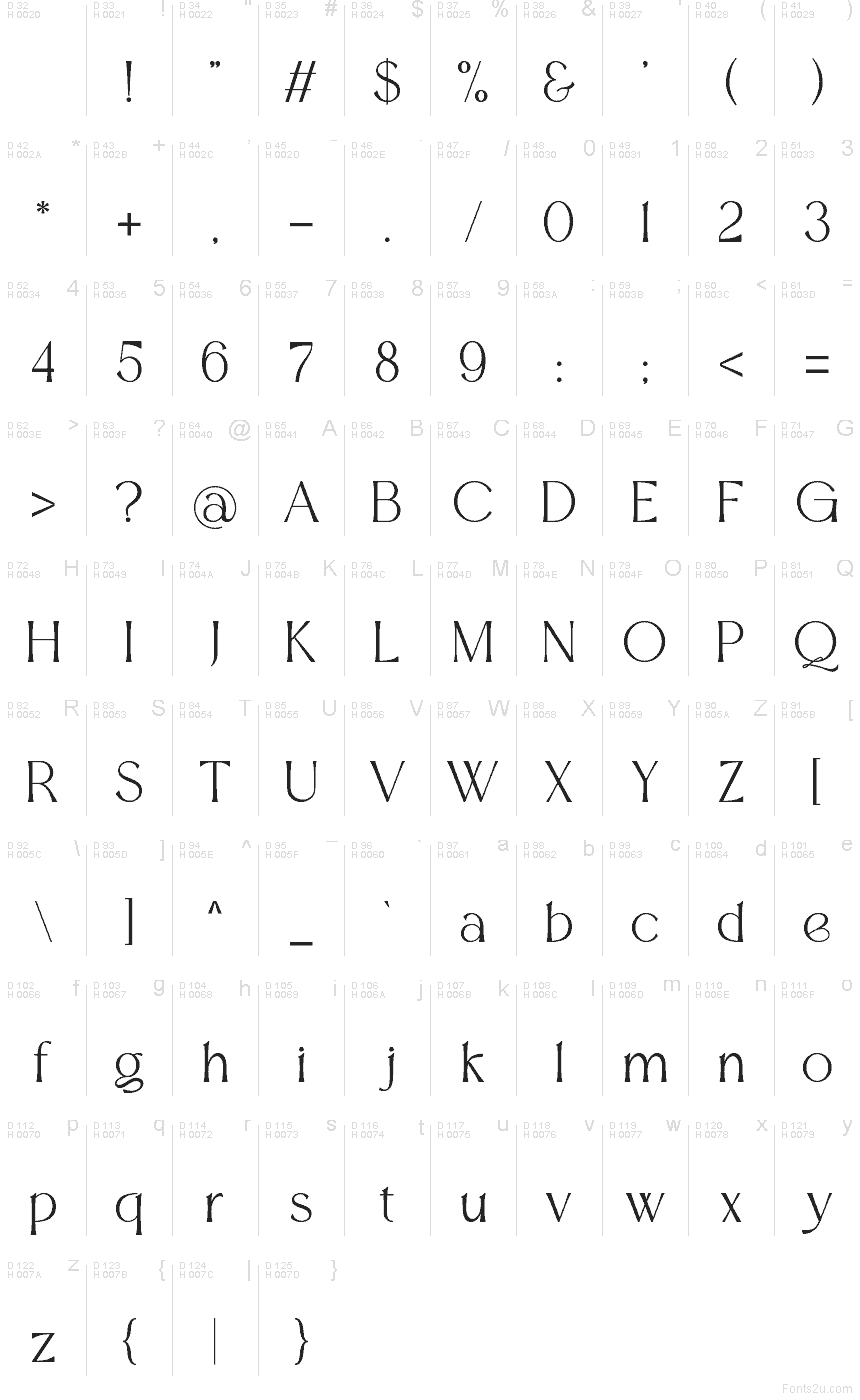
Qlivero Regular
Qlivero font by ErmediaStudio is a free vintage serif typeface with a distinctly sculpted, almost calligraphic rhythm. Its letters feel hand-carved rather than drawn, with flowing curves, tapered strokes, and elegant loops that give words a sense of movement and drama. There’s a touch of old-world romance here, but the sharp, clean edges keep it from feeling dusty or overly ornate.
Using Qlivero, headlines instantly gain a boutique, crafted character that works beautifully for wine labels, perfume packaging, restaurant menus, wedding invitations, book covers, and refined branding. This free font really shines when given room to breathe at larger sizes; pair it with a simple sans serif for body text to let Qlivero’s curves and vintage flair take center stage.